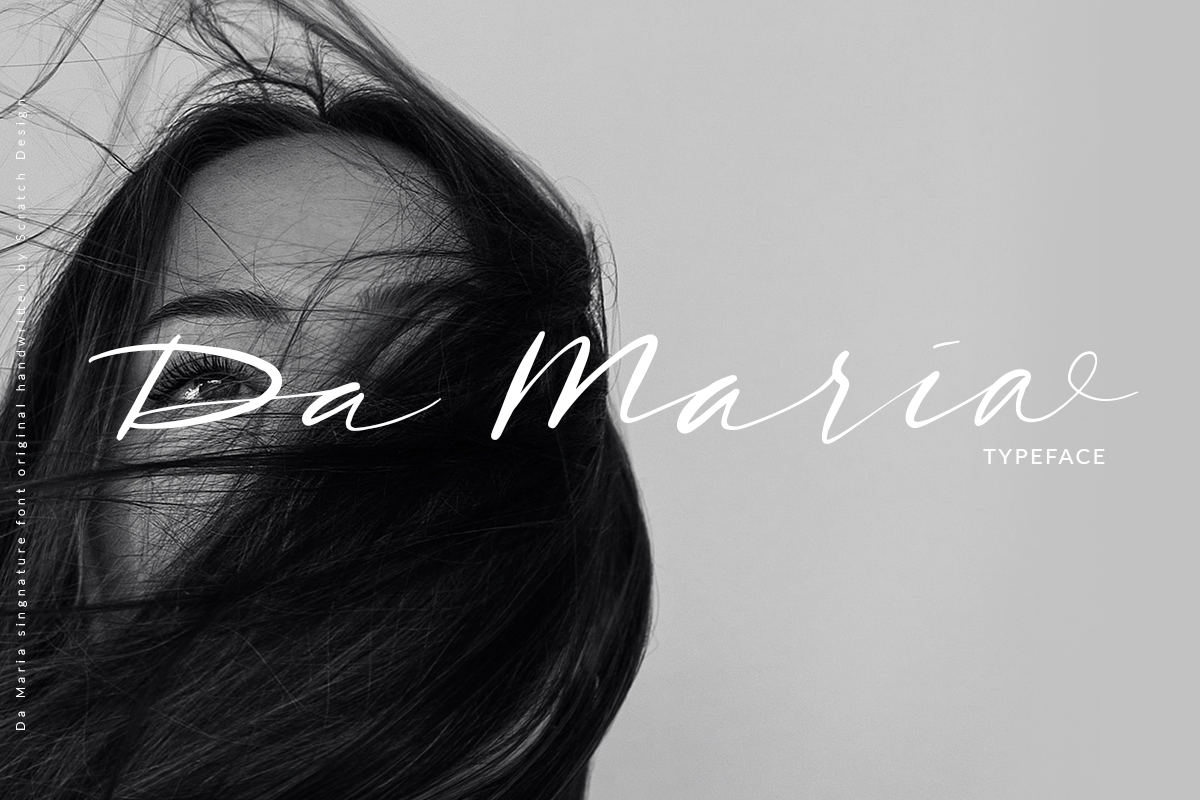
Da Maria
Allow us to introduce Da Maria font.
A handmade font designed to perfectly combine a romantic script and hand drawn design elements. Perfect for wedding invitation, quote, greeting cards, branding, stationery design, social media, packaging, magazine layouts, prints and more. This font also can be useful for signature design and logo. What you get:
Feature:
• Number
• Punctuation
• Alternate
• Multilingual Support (ÀÁÂÃÄÅÇDÐEÈÉÊËIÌÍÎÏNÑOØÒÓÔÕÖUÙÜÚÛWYÝŸỲŸÆŒßÞþ)